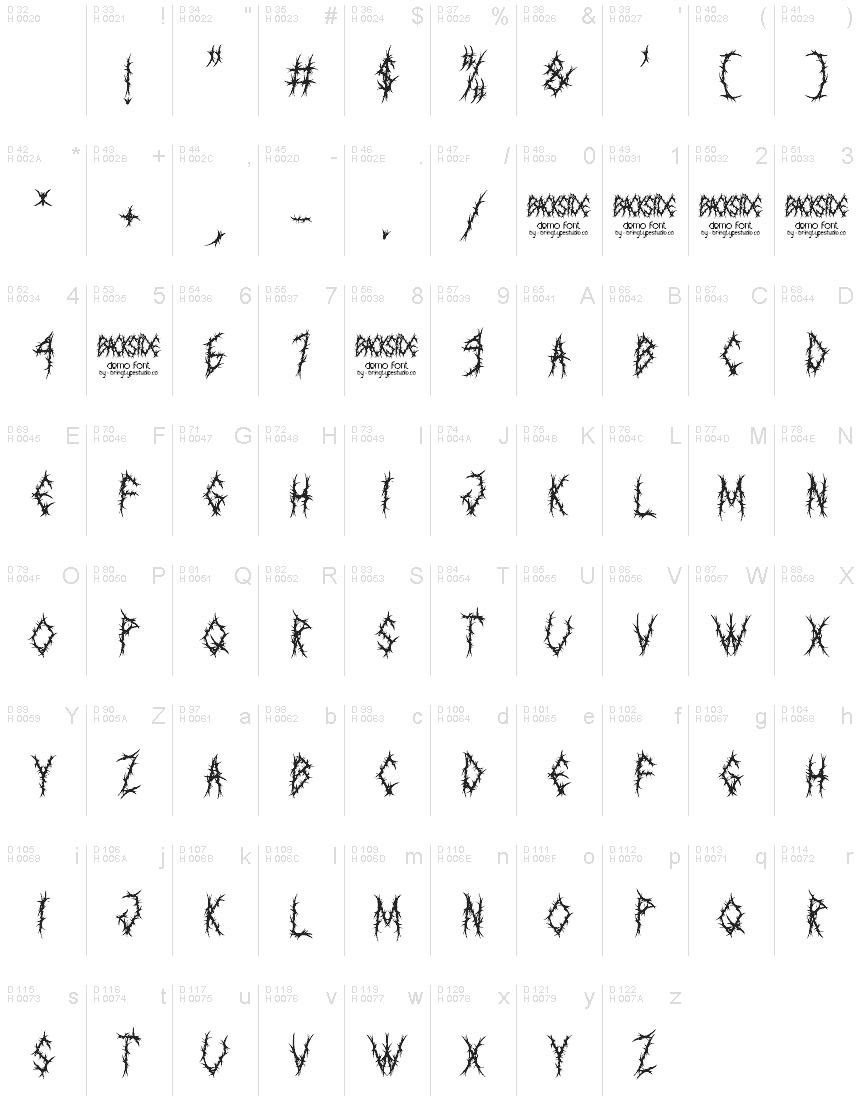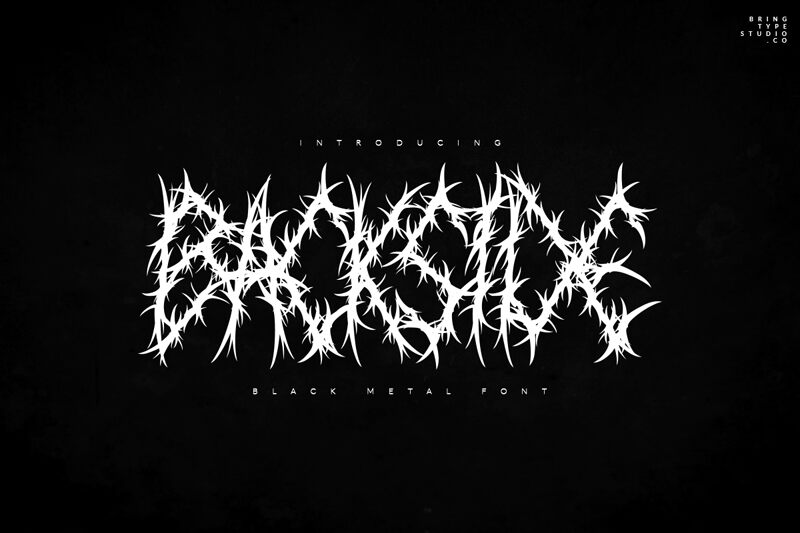
BACKSIDE
Backside font by bringtypestudio.co is a unique gothic display font with a condensed structure. It carries an organic, spiky, and chaotic look, giving off an aggressive and edgy vibe. Intricate by design, each glyph looks like a dark piece of art that contributes to the overall text appearance. Made for selected design projects only, it’s one of the fonts you should have on your list for that very special application.
Backside font uses include gaming items like posters, covers,and promo materials; movie or events posters; personal tattoos; clothing brands or t-shirt print designs; rock and punk concerts branding such as tickets and brochures etc.